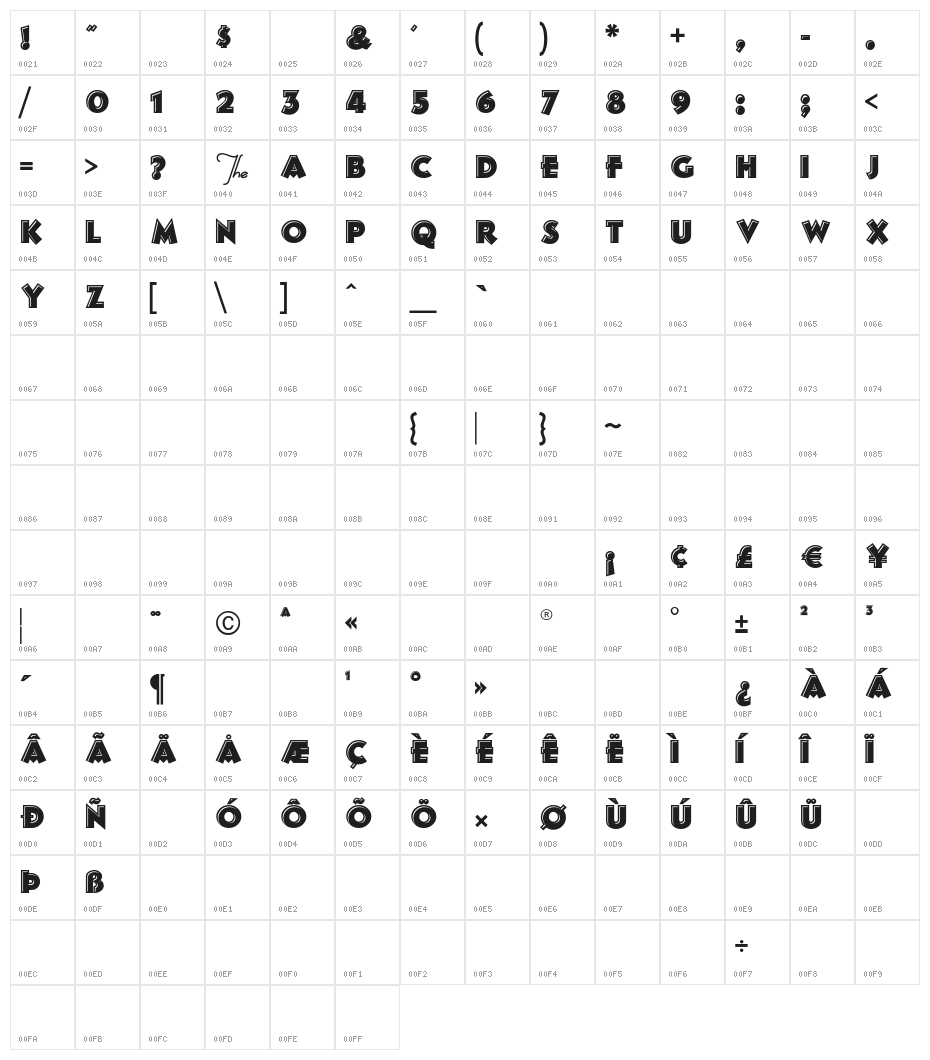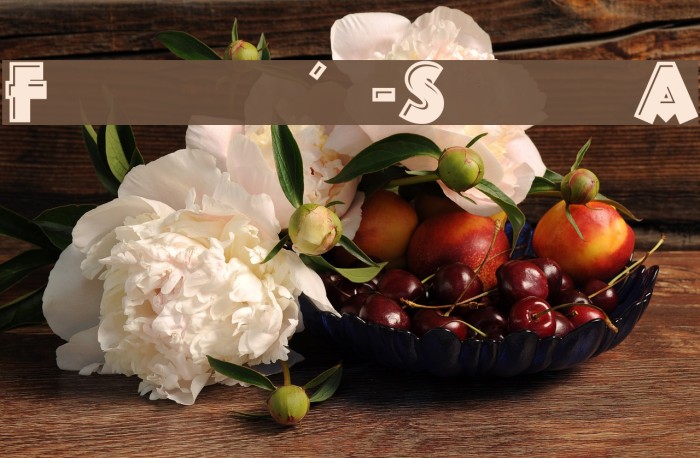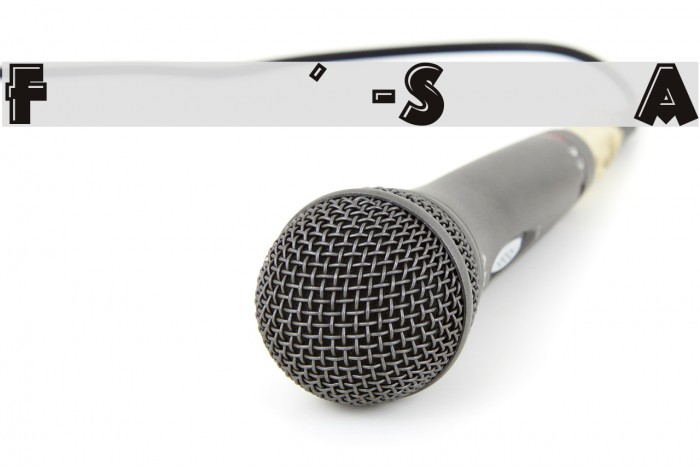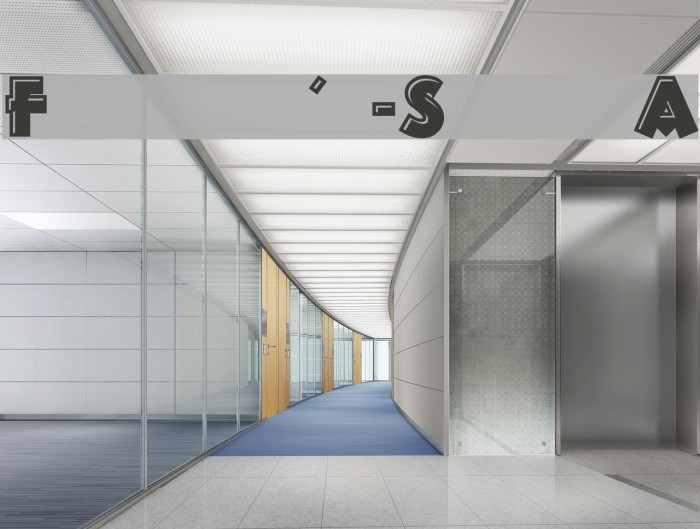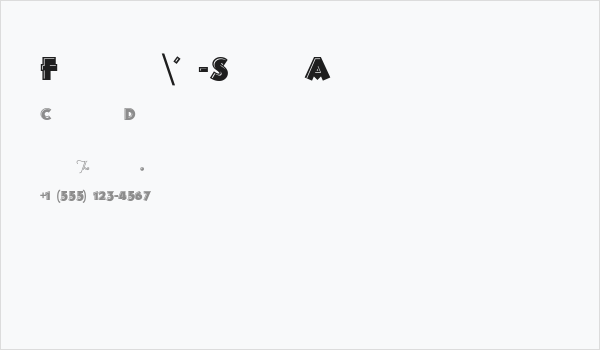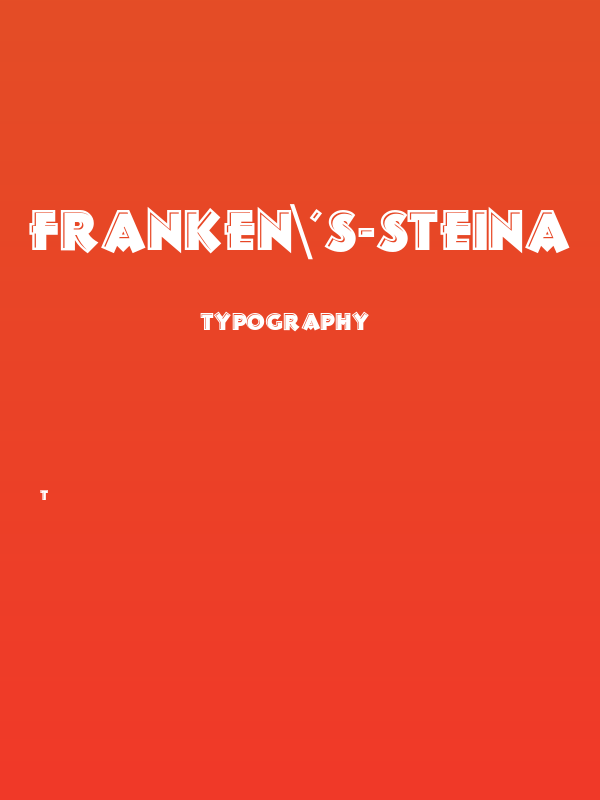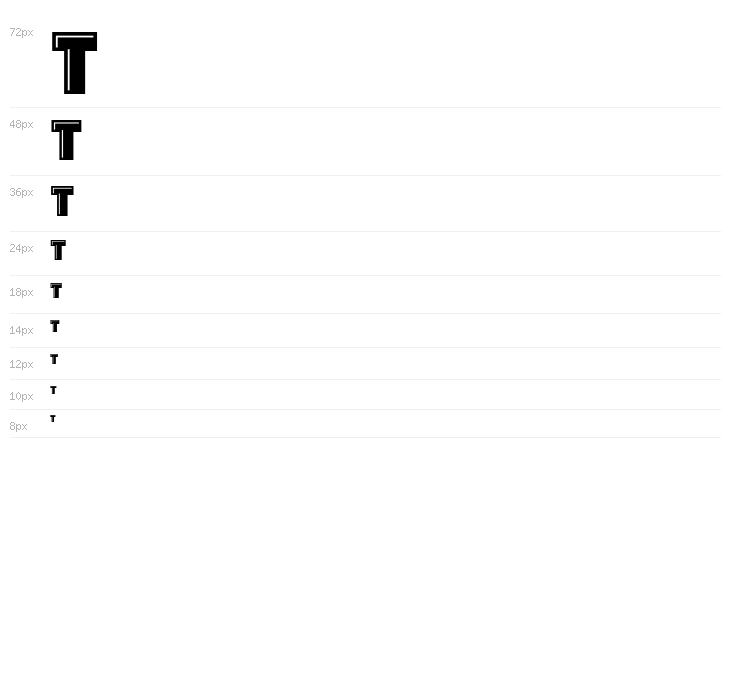
Franken's-SteinA Font
Franken's-SteinA Description
This font features a bold and striking design with a three-dimensional effect that gives each character a shadowed appearance. The letters are uppercase and have a strong geometric structure, with sharp angles and clean lines. The numbers and special characters follow the same bold and dynamic style, making them stand out prominently. The font's unique style is reminiscent of vintage poster typography, with a modern twist that adds depth and visual interest.
| Overall Style | Vintage, Decorative |
| Proposed Projects | Ideal for use in posters, headlines, logos, and any design project that requires a bold and eye-catching typeface. |